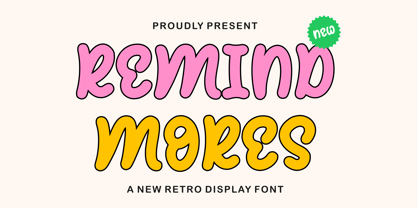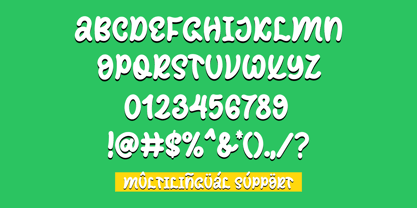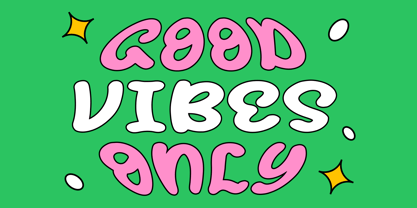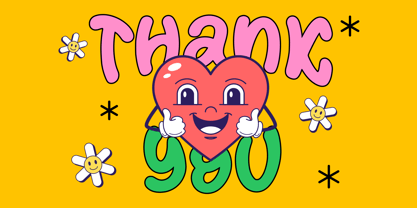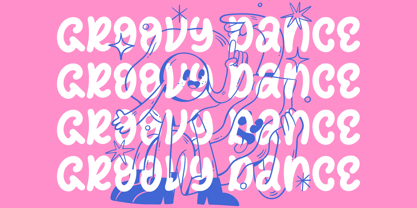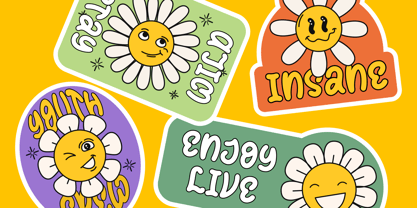
Remind Mores
by Bhubbiberry Studio
The Remind Mores Font Family was designed by Annas Rifky Anhar and published by Bhubbiberry Studio. Remind Mores contains 1 styles. More about this family
Immerse yourself in a buoyant retro vibe with Remind Mores – an aesthetic display font that is a perfect harmonization of classic and cheerful. This groovy font breathes life into your creative endeavours, exuding a nostalgic aura which makes it a matchless choice for a plethora of projects. From giving an edge to your product packaging and magazine designs to lending an unforgettable persona to your social media and wedding themes, Remind Mores is the quintessential punctuation to your backdrop, making every word spelled above it expressively distinctive. Infuse your visuals with the timeless ethos of REMIND MORES, and let your projects capture attention, heart and soul.
Designers: Annas Rifky Anhar
Foundry: Bhubbiberry Studio